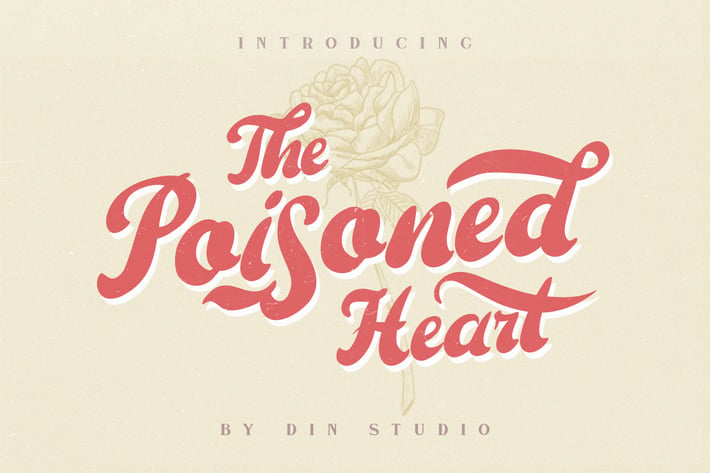
The Poisoned Heart - Retro Vintage Font
Din-Studio
The Poison Heart is a amazing display font. The font is suitable for any project like branding , lettering , T-shirt print and may others.
- 10 Ligatures
- 76 Alternates and swashes